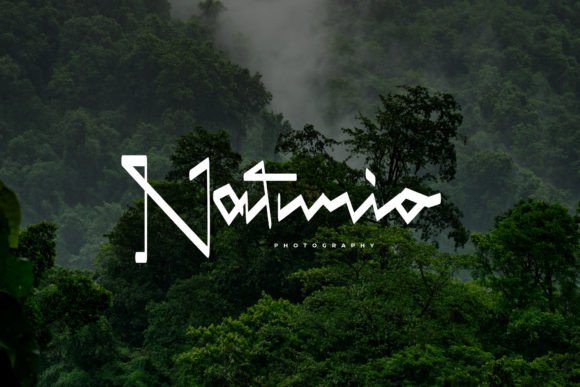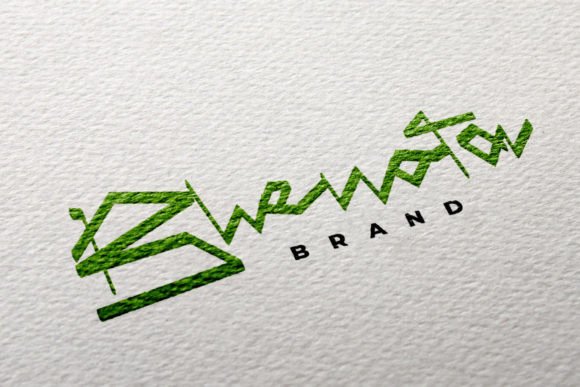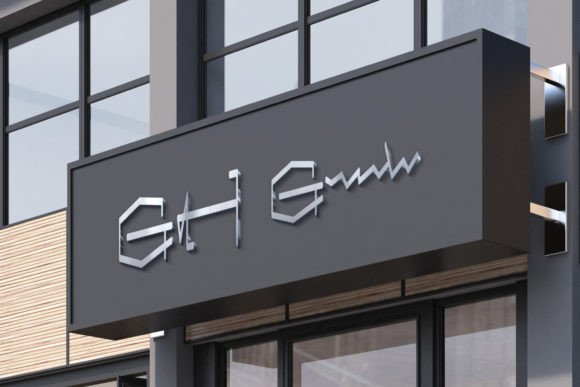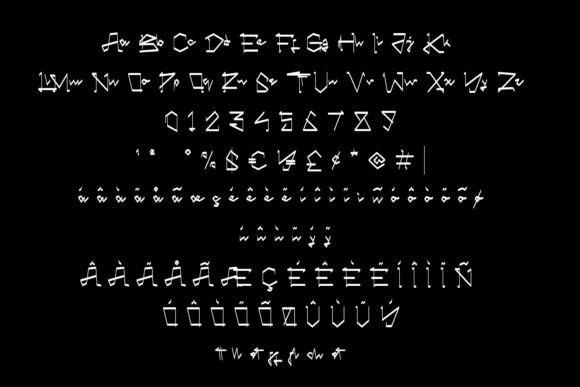
Introduction to Romacht Font
As a designer, you know that moment when inspiration strikes and you’re itching to bring a new idea to life. The blank page stares back at you, waiting for your creative spark to ignite. It’s moments like these that you need the perfect design resource to fuel your imagination.
Enter the Romacht Font, a delightful and offbeat handwritten display font that’s sure to add a touch of whimsy to your creative project. With its unique, hand-crafted style, this font is the perfect tool for designers looking to create high-quality, eye-catching designs that stand out from the crowd.
Key Features of Romacht Font
- High-quality design resource ideal for creative projects, offering a unique aesthetic.
- Unique characteristics include a modern, clean design and a wide range of font styles, making it a versatile design resource.
Honest Review: Romacht Font
I recently stumbled upon the Romacht Font, a free download that caught my eye. As a designer, I’m always on the lookout for high quality design resources that can elevate my creative projects.
The Romacht Font delivers in terms of aesthetics. It has a unique, vintage feel that’s perfect for adding some texture to your designs. The transparent background makes it easy to combine with other elements. I love how versatile it is – it can work well for both digital and print projects.
- ✨ High-quality design that’s perfect for adding texture to your projects
- ✨ Unique, vintage aesthetic that’s easy to incorporate into your designs
- ✨ Transparent background for seamless layering
One limitation I’ve noticed is that the font might not be as legible at smaller sizes. It’s a bit more suited for larger text or titles. Additionally, the font family is relatively small, so it might not be ideal for projects that require multiple font weights.
Overall, I’m impressed with the Romacht Font. It’s a great addition to any designer’s toolkit, and I appreciate the transparency from the creator. I’d definitely recommend it for creative projects that call for a unique, high-quality font.
Romacht Font is perfect for a variety of design projects, including logos, branding materials, and marketing materials. Its high-quality design and transparent background make it easy to use and customize for any design need.